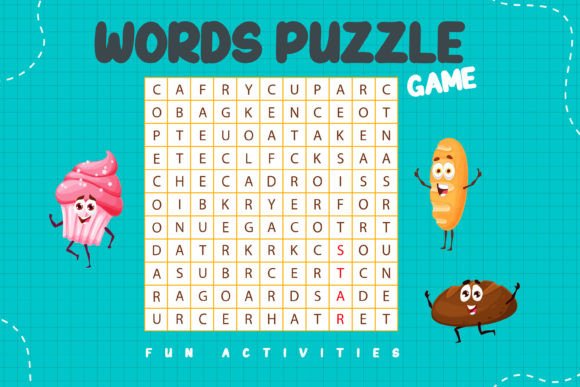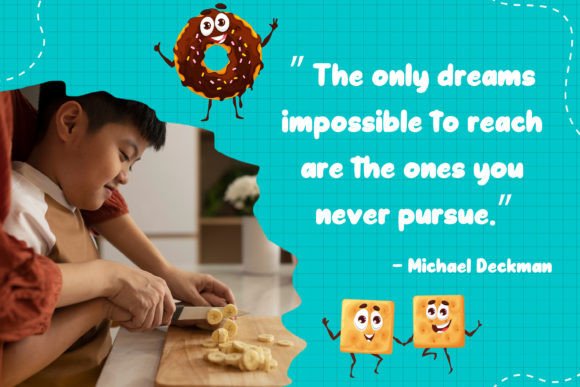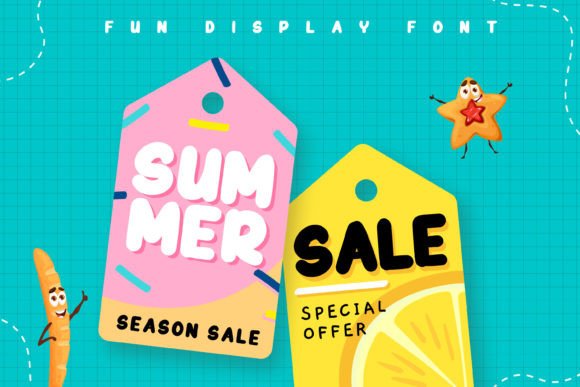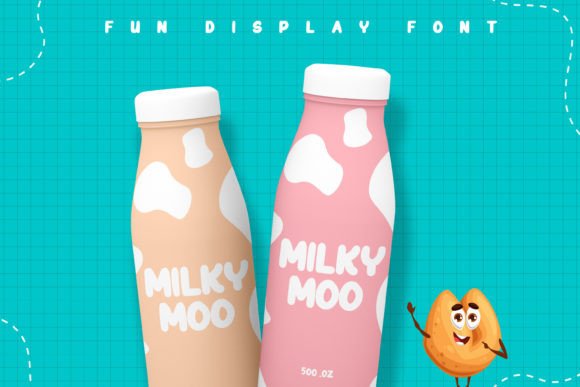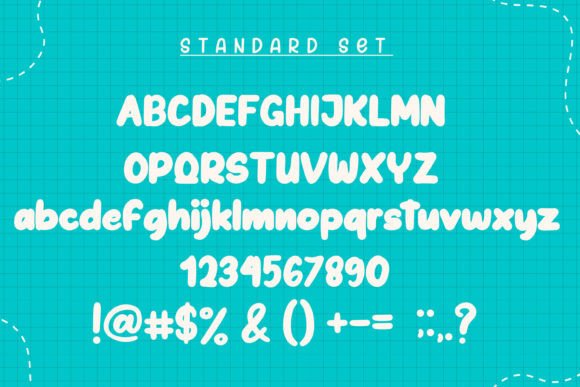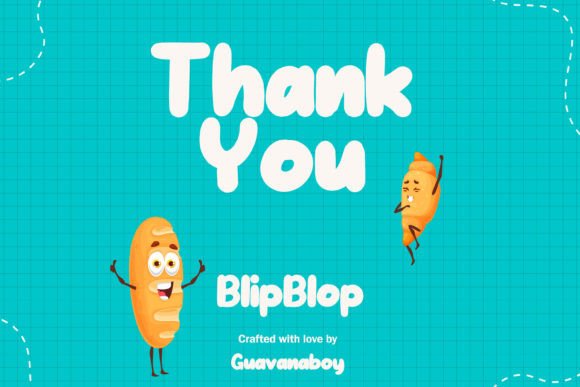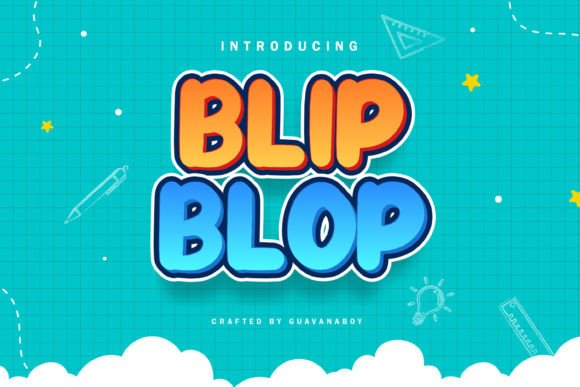
Introducing BlipBlop Font: The Playful Display Font You Need
Have you ever been in the middle of a design project, and suddenly, you’re stuck on finding the perfect font? I recall a recent experience where a client asked for a playful, yet elegant font for their wedding invitation suite. After hours of searching, I stumbled upon BlipBlop Font, and it instantly became the star of the show! In this article, we’ll dive into the world of BlipBlop Font, exploring its features, uses, and everything in between.
A Personal Review: What I Love About BlipBlop Font
BlipBlop Font is a fun display font that adds a touch of playfulness to any text. Here are some things I love about it:
- ✨ Playful handwritten-style: BlipBlop Font has a unique, handwritten feel that makes it perfect for creative projects.
- ✅ Highly versatile: This font can be used for a wide range of applications, from social media posts to wedding invitations, and even website headers.
- 💫 Easy to read: Despite its playful nature, BlipBlop Font remains clear and easy to read, making it perfect for body text and titles.
While BlipBlop Font is an excellent choice for many projects, there are a few things to keep in mind:
- ⚠️ Limited use in formal contexts: Due to its playful nature, BlipBlop Font might not be the best fit for formal documents, such as academic papers or business reports.
- 🤔 Glyph limitations: While BlipBlop Font has a wide range of glyphs, it might not have every special character or symbol you need.
BlipBlop Font was created with the intention of bringing a playful, yet elegant feel to design projects. The designer aimed to craft a font that’s both fun and versatile, making it perfect for a wide range of applications. While the designer’s exact inspiration might be unknown, it’s clear that BlipBlop Font was created with creativity and imagination in mind.
| What is BlipBlop Font best used for? | BlipBlop Font is perfect for social media posts, advertisements, Instagram, logos, branding, wedding invitations, and more! |